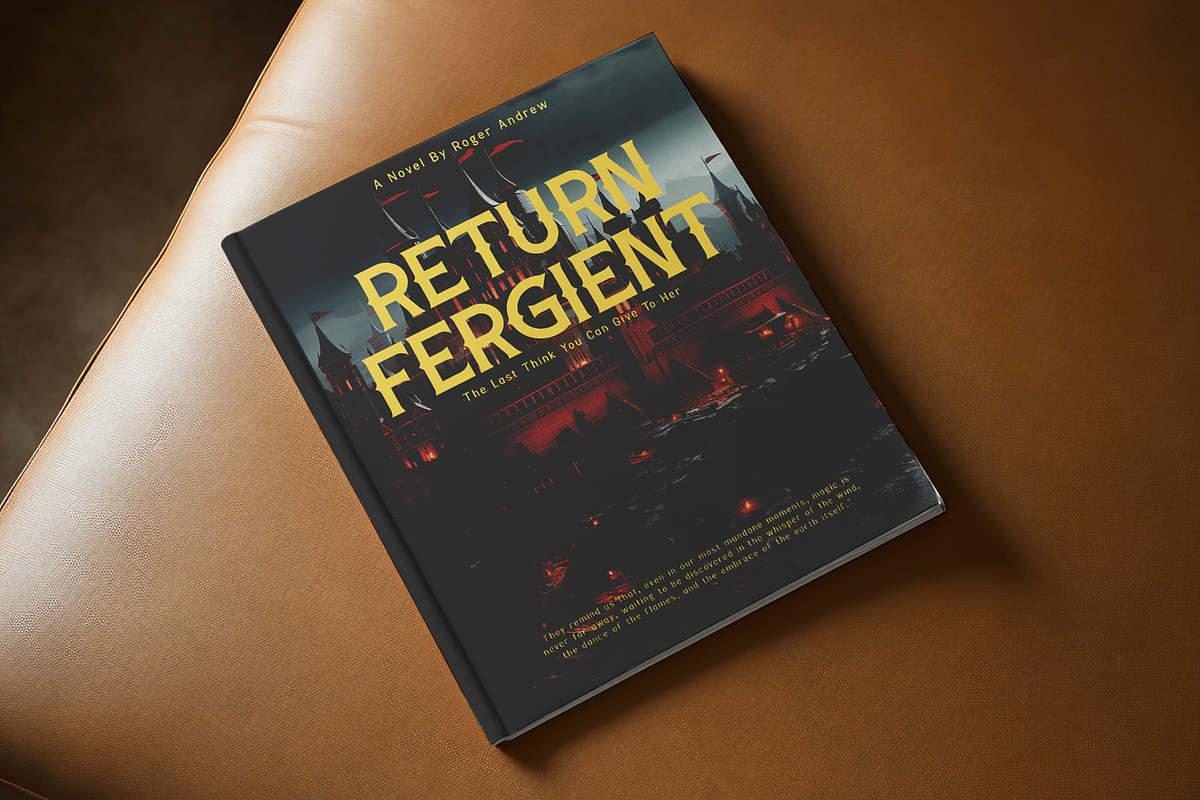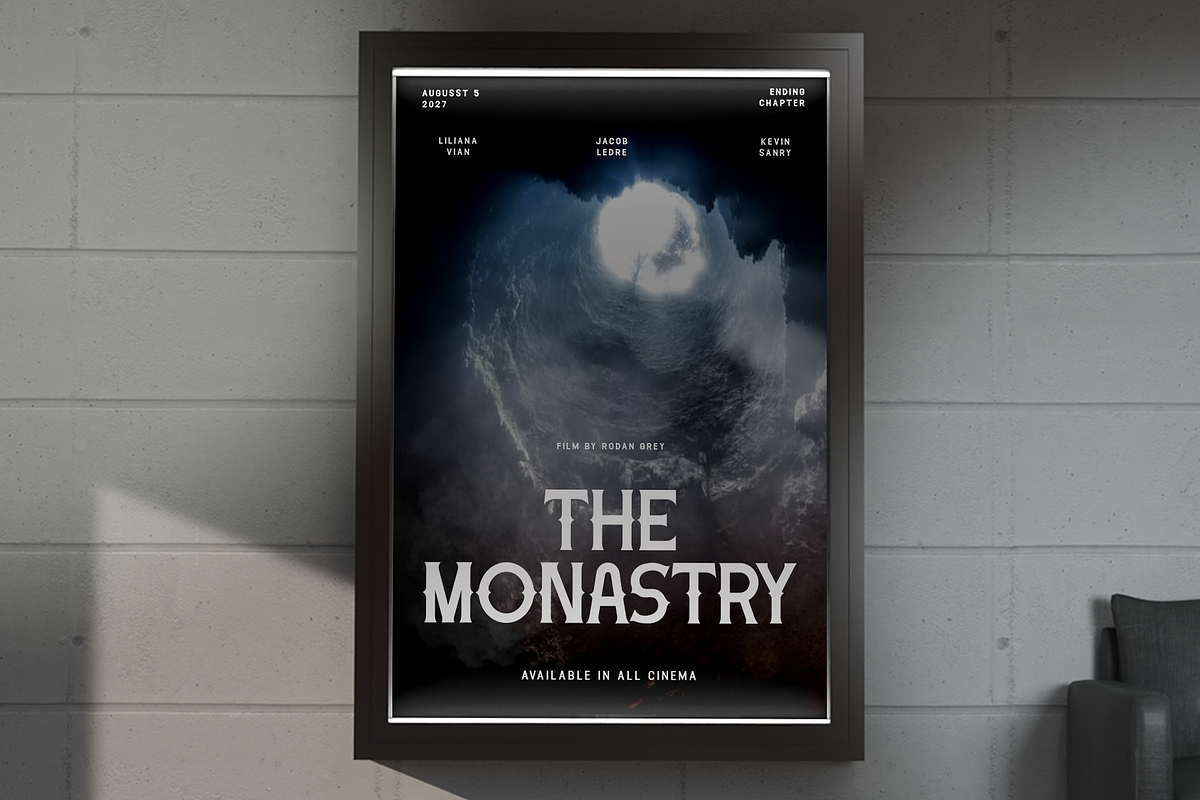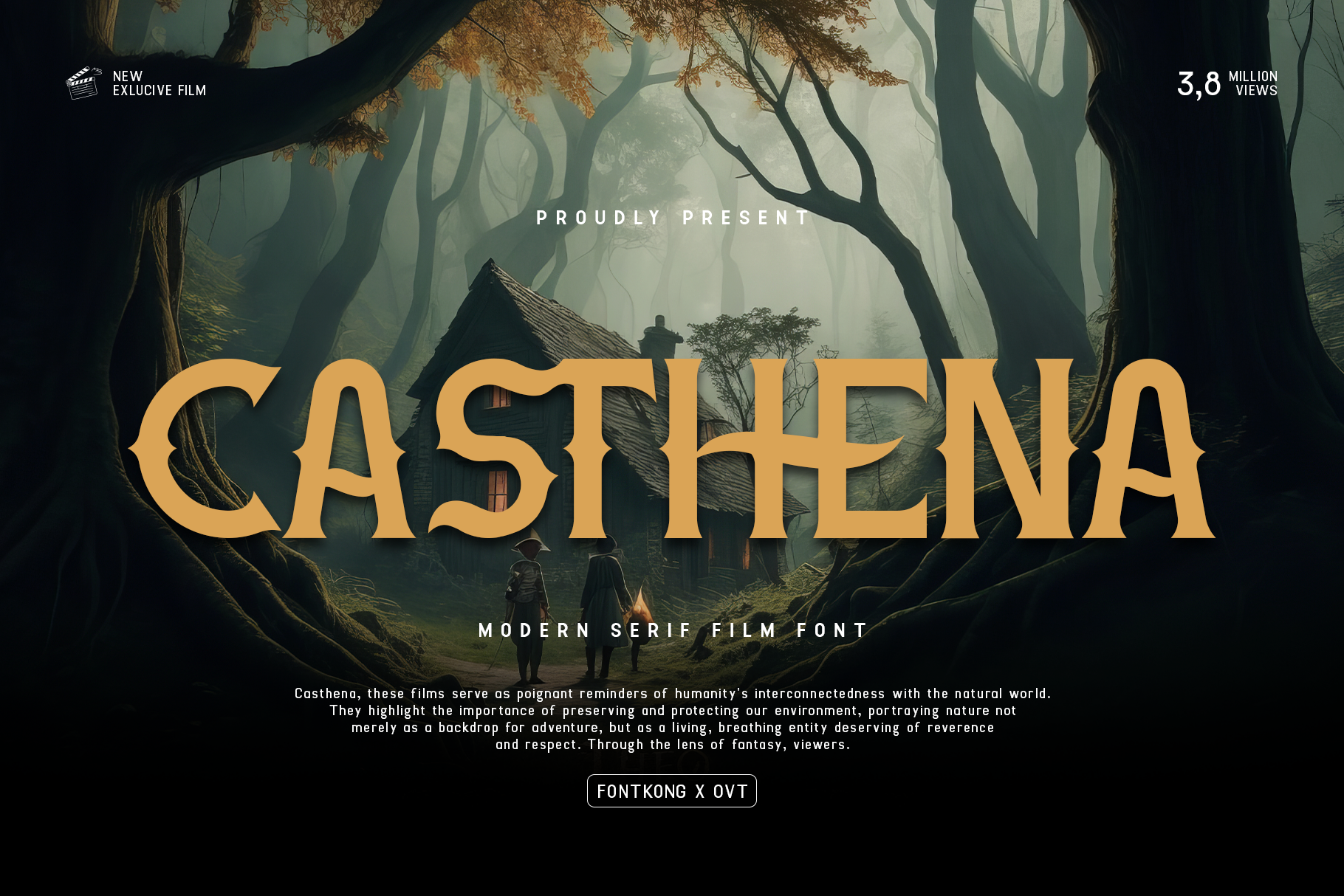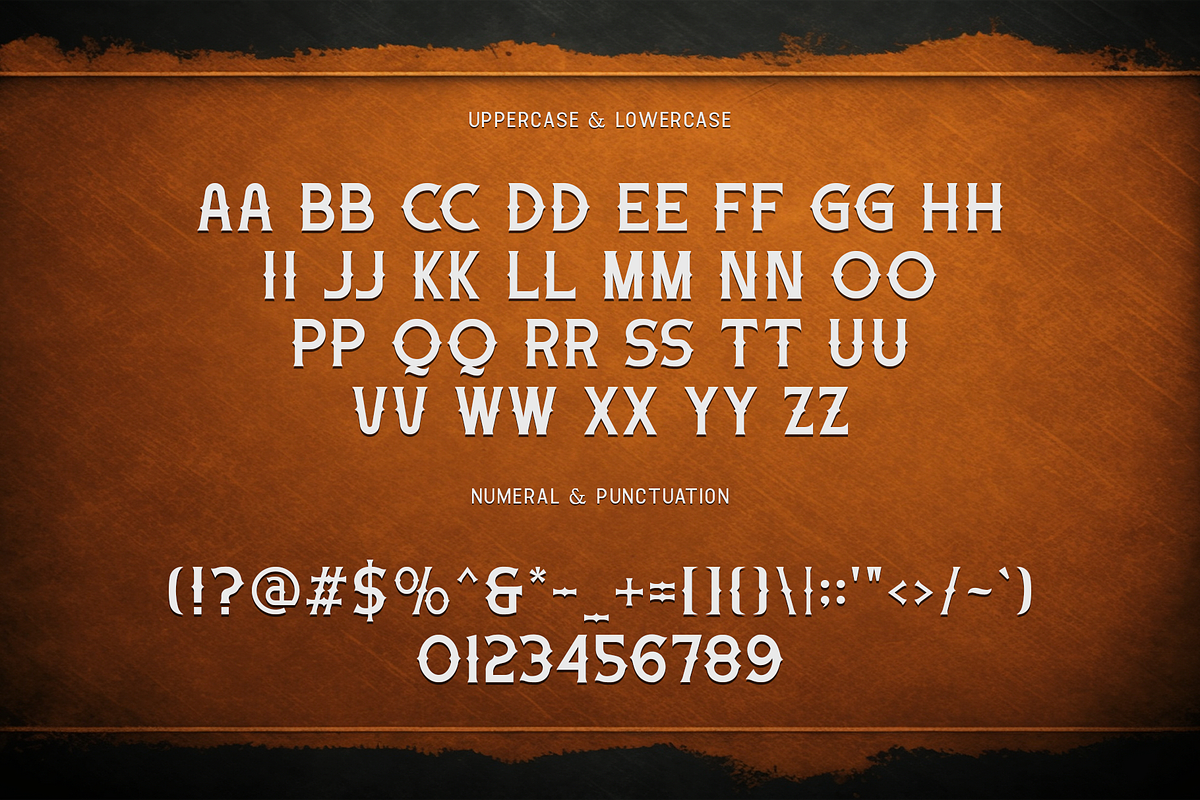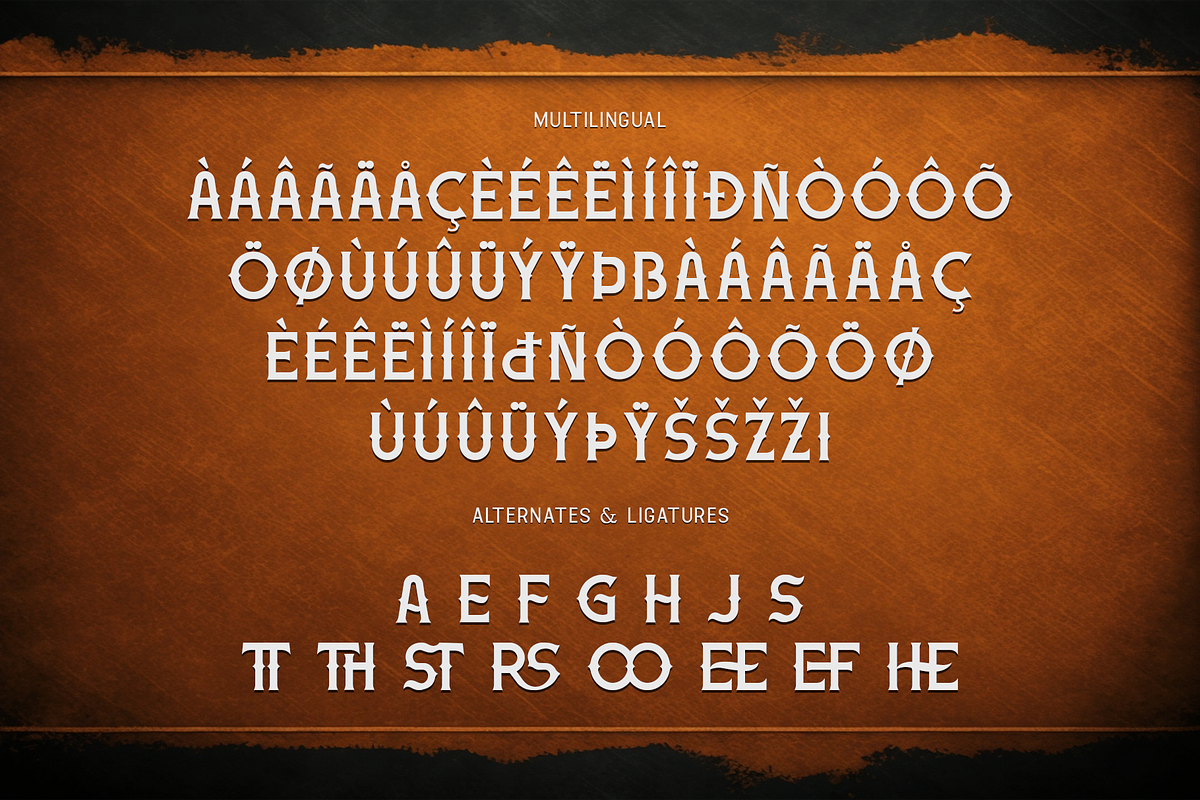
Casthena - Modern Serif Film Font
Introducing "Casthena," a modern serif film font that embodies sophistication and cinematic elegance. Perfect for filmmakers, designers, and creatives aiming to enhance their projects with a refined touch, Casthena merges classic serif elements with contemporary styling to create a distinctive and timeless typographic experience.
Ideal for film titles, posters, logos, and branding materials, Casthena's sleek lines and elegant curves provide a striking visual impact. Each character is meticulously crafted to ensure a polished and professional appearance, making your designs stand out with grace and style.
The "Casthena" font includes a full set of uppercase and lowercase letters, numbers, and punctuation marks, offering versatility and flexibility for various design applications. Whether you're working on a high-profile film project or creating sophisticated branding, Casthena elevates your designs with its modern and stylish aesthetic.
Infuse your projects with cinematic elegance and modern sophistication using Casthena, the perfect serif film font for any creative endeavor.